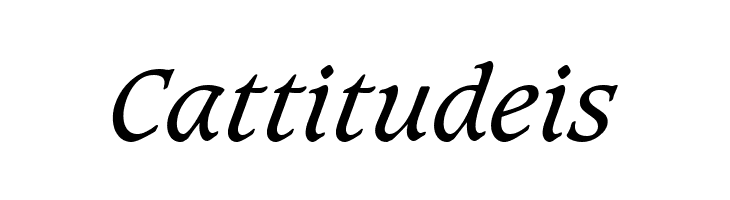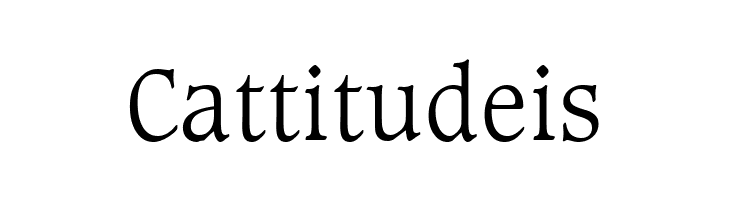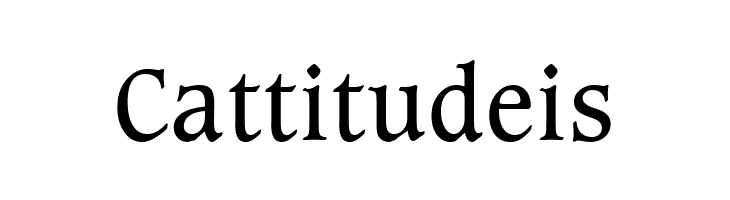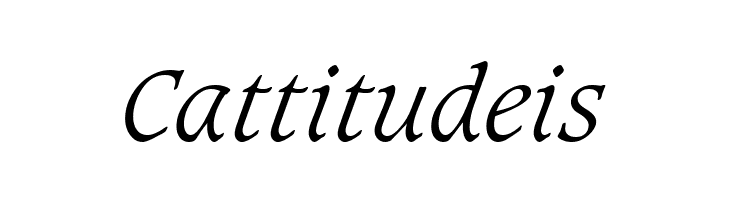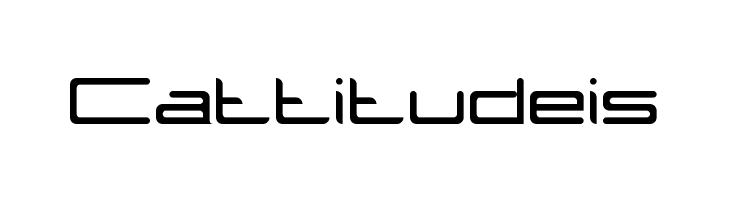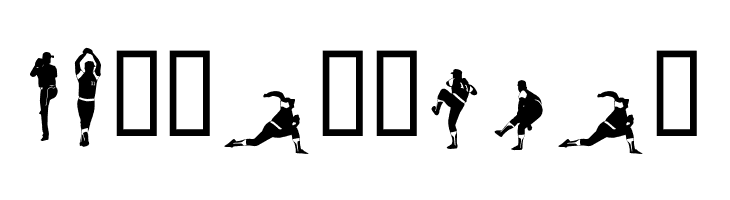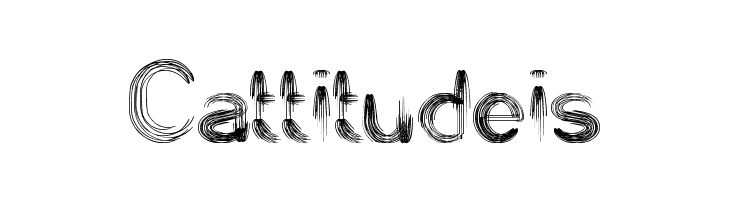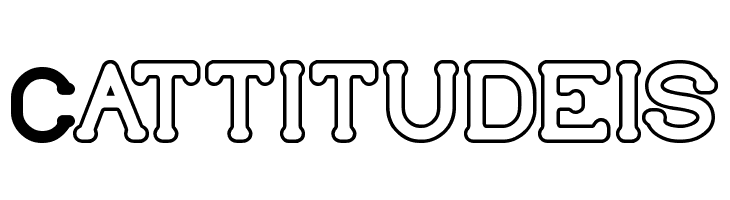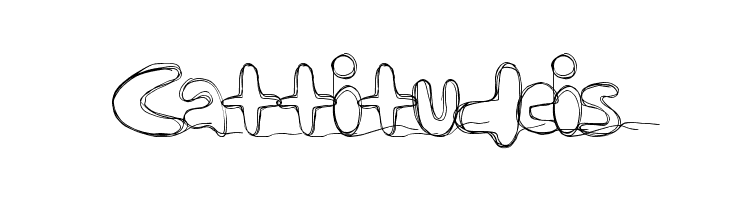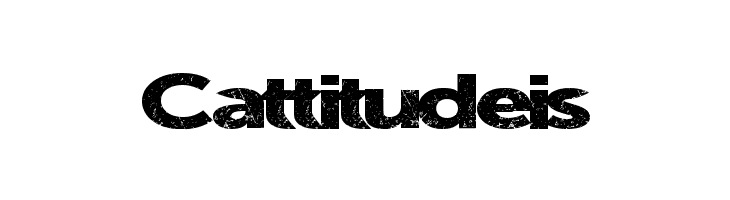
A gritty, urban font with a distressed, graffiti-inspired style.
A bold, graffiti-inspired font with sharp angles and a rugged texture.
A bold, geometric font with a modern and robust appearance.
A bold, three-dimensional font with a playful yet assertive style.
A bold, geometric font with a modern and structured design.
A geometric and abstract font with thin lines and circular elements, offering a modern and futuristic look.
A playful, hand-drawn font with a stretchy, rubber-like appearance.
A hand-drawn, string-like font with overlapping lines and a textured appearance.
A hand-drawn, wire-like font with a textured and artistic appearance.
A bold, geometric font with a distinctive striped pattern.
A bold, hand-drawn font with a striped pattern and playful style.
A bold, artistic font with exaggerated curves and sharp points, ideal for creative projects.
Sport-themed decorative font with athlete silhouettes and outlined numbers.
A bold, strong font ideal for impactful headlines and designs.
A playful, hand-drawn font with interconnected letters and bold outlines.
A textured, distressed font with a bold, vintage appeal.
A bold, decorative font with intricate, hand-drawn patterns inside each character.
A bold, geometric font with a modern, blocky style.
A bold, rounded font with a playful outline effect.
A bold, rounded font with a distinct outline, offering a playful yet structured appearance.
A pixelated, grid-based font with a retro digital display aesthetic.
A futuristic, geometric font with clean lines and angular shapes.
A classic serif font with elegant strokes and pronounced serifs.
A bold, classic serif font with elegant flared serifs and strong presence.
A bold, italic serif font with a classic and elegant style.
An elegant italic serif font with classic and sophisticated appeal.
A classic serif font with elegant, thin strokes and high contrast.
A light, elegant serif italic font with smooth curves and refined letterforms.
A bold, edgy font with sharp, angular strokes and a rebellious, graffiti-like style.
A bold, edgy, and italicized font with sharp, angular lines.